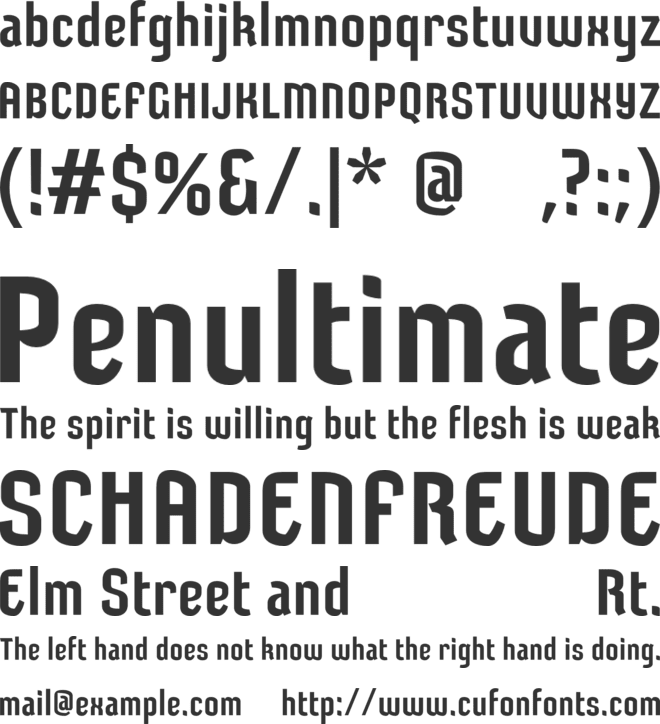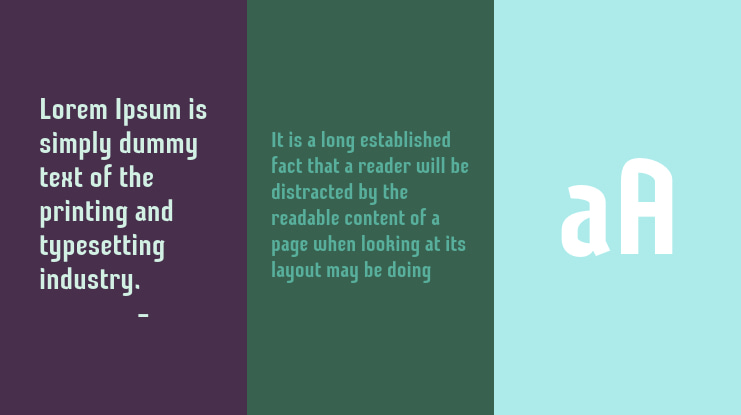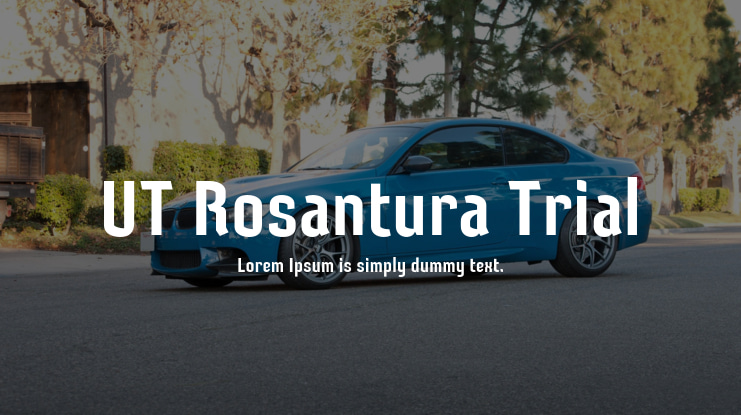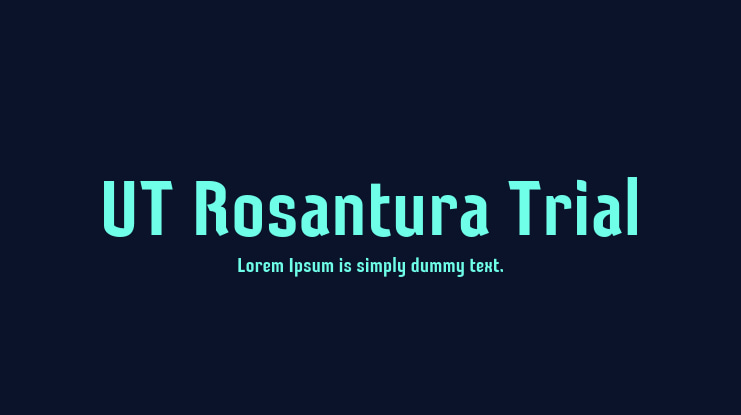
UT Rosantura Trial Font
Universitype Foundry
UT Rosantura is a font that speaks volumes about your design aesthetic. Its unique blend of old-world charm and contemporary clarity makes it a must-have for any creative’s arsenal. Whether you’re working on a global campaign or a local project, UT Rosantura will help you create designs that are both impactful and memorable.